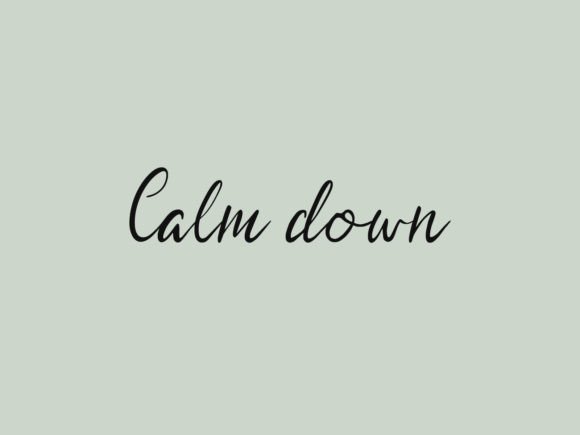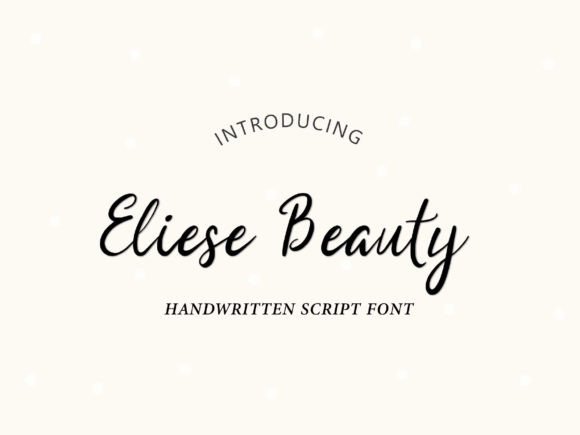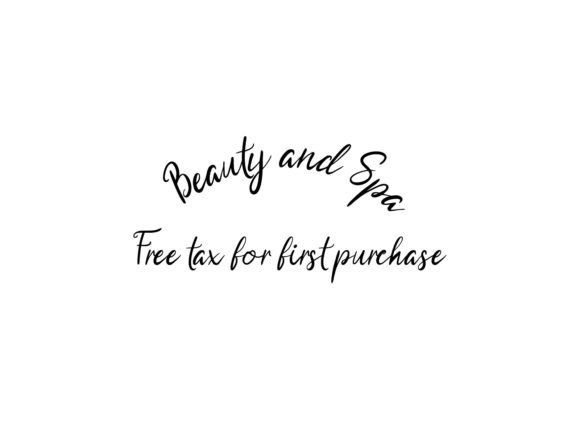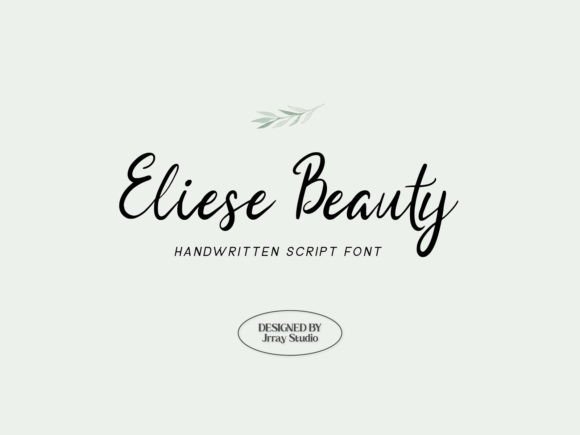
Say hello to β€œEliese Beauty” , a Professional Handwritten Script font typeface.
It’s very recommended for beauty content, signature project and Perfect for invitations, greeting cards, and personal branding, spa, salon, magazine, book ect Eliese Beauty brings a timeless charm to your written expressions.